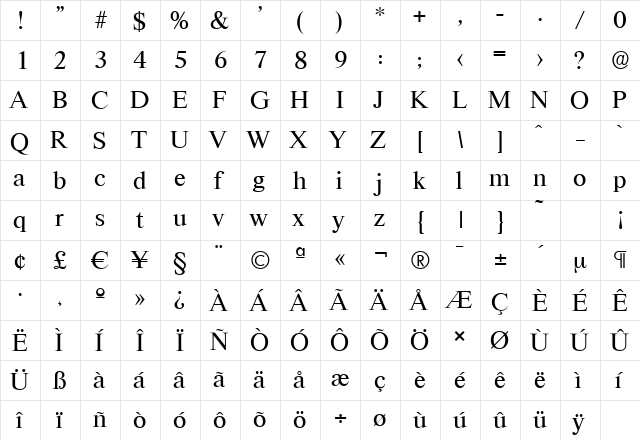
RiccioneSerial Regular
Design Context for RiccioneSerial Typeface
RiccioneSerial offers clean, dependable letterforms without strong stylistic allegiance, making it a practical choice for designers who need flexibility.